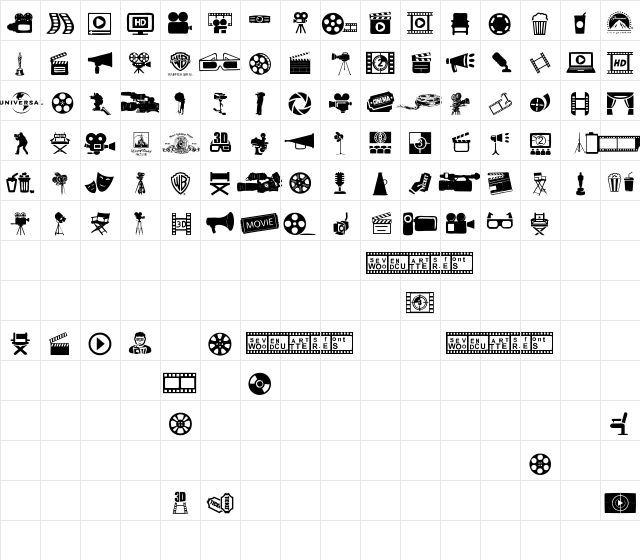
Seven Arts Regular
Design Context for Seven Arts
Seven Arts is a composed and adaptable typeface that performs quietly and consistently across a wide range of design contexts.